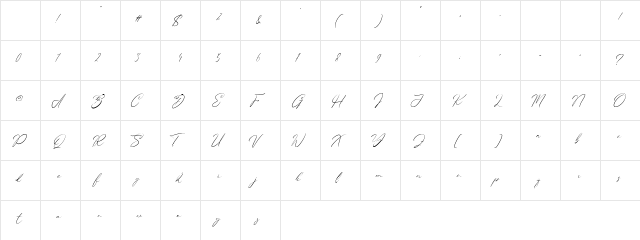
Authentipa is a composed and adaptable typeface that performs quietly and consistently across a wide range of design contexts.
Pro Tip: Use Authentipa in both headline and body roles to test its range before committing to a single application.